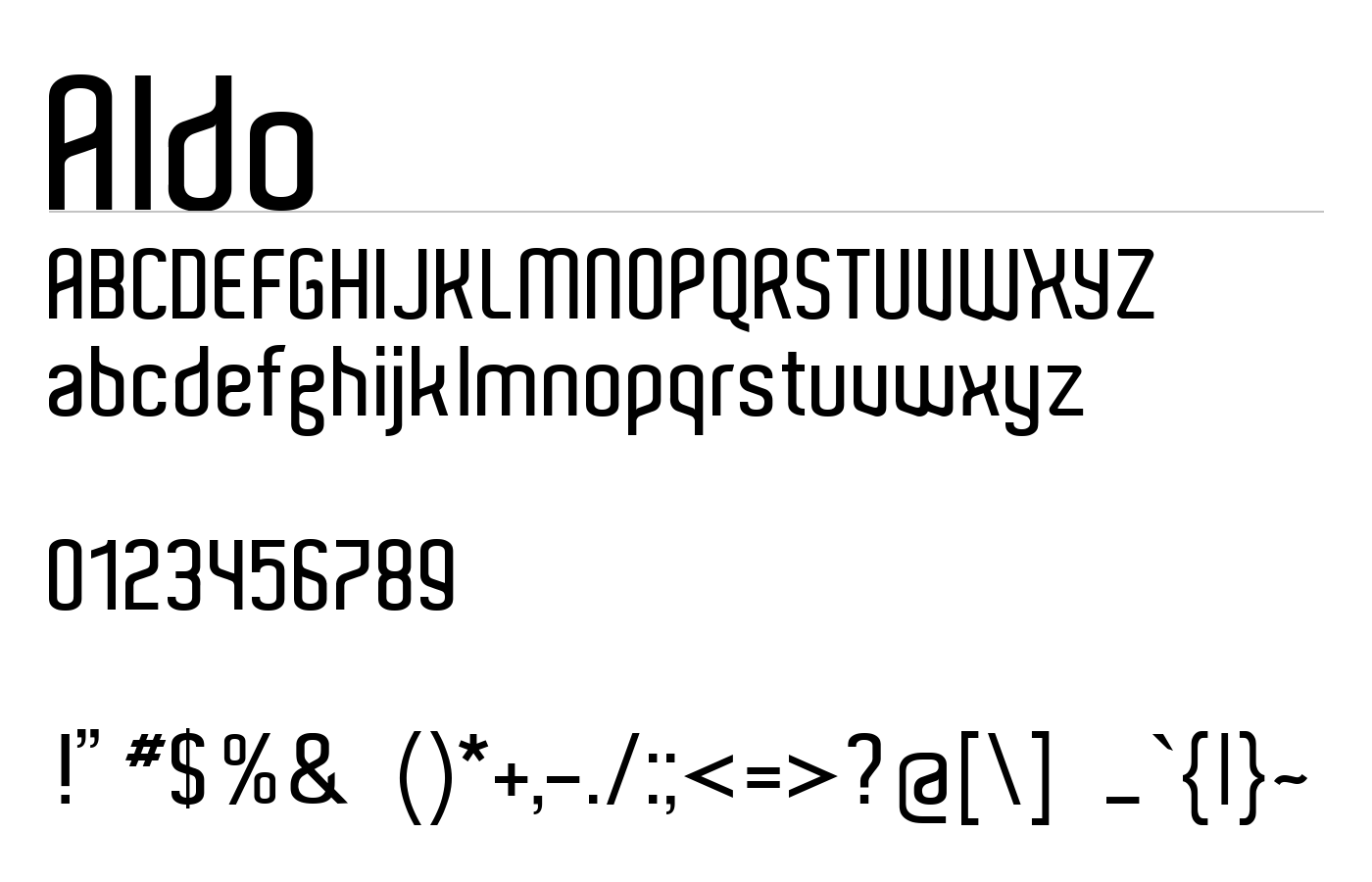
Aldo is a modern, narrow sans serif font characterized by its tall, slender letterforms and subtle geometric influences. With clean lines and a consistent stroke weight, it offers a sleek and contemporary feel, making it ideal for stylish branding, headlines, and editorial design where a minimalist but distinctive look is desired. Its legibility and unique character shapes give it a sophisticated yet approachable personality suitable for fashion, tech, and lifestyle projects.
Aldo Font
About Aldo Font
| Font family | Aldo Font |
| Designer | Rein Sacha |
| Font subfamily | SemiBold |